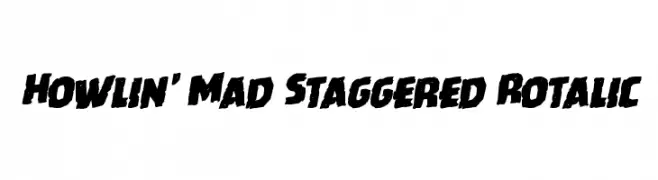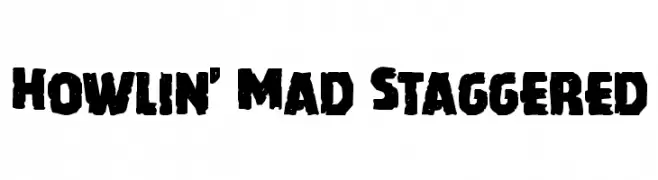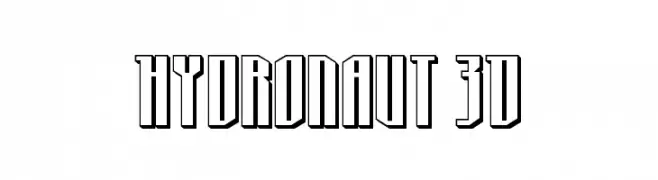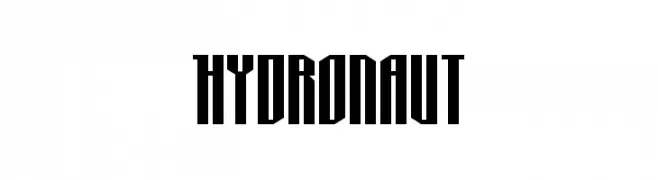
A bold, rugged font with distressed edges and a dynamic, handcrafted feel.
A bold, staggered italic font with rough edges and a dynamic style.
A bold, staggered, and italicized font with a dynamic and edgy style.
A bold, geometric font with a futuristic and industrial style.
A bold, 3D geometric font with a strong, industrial style.